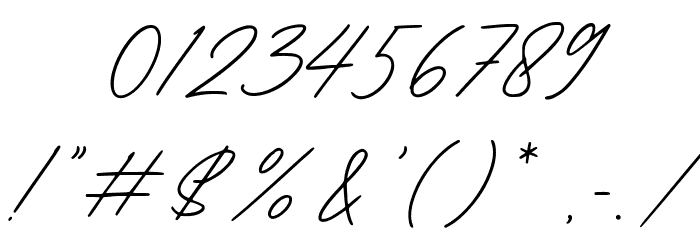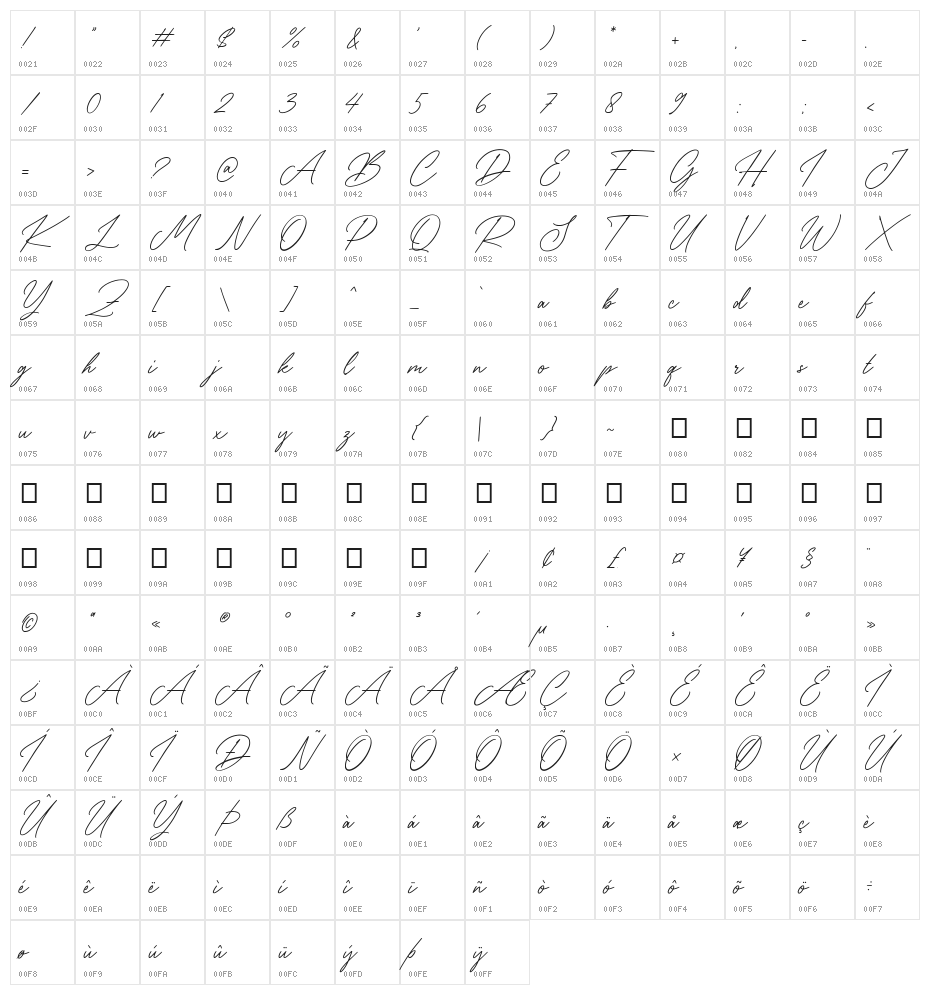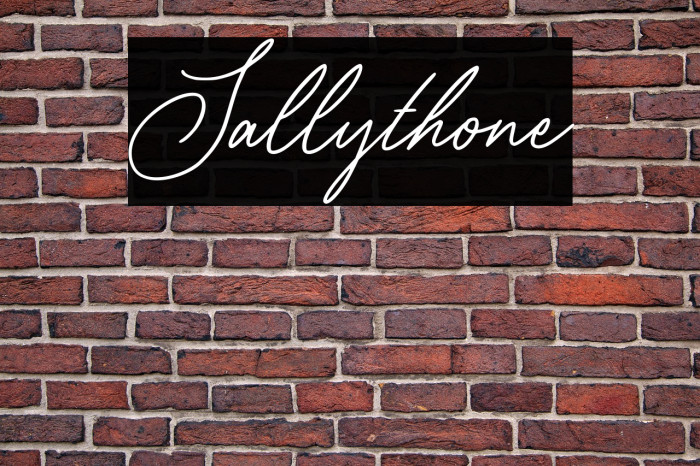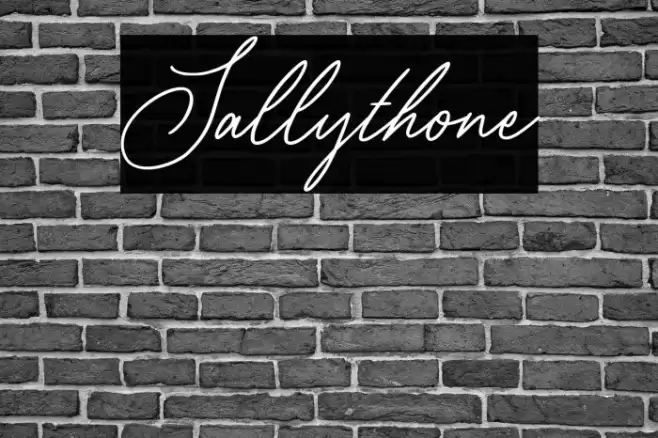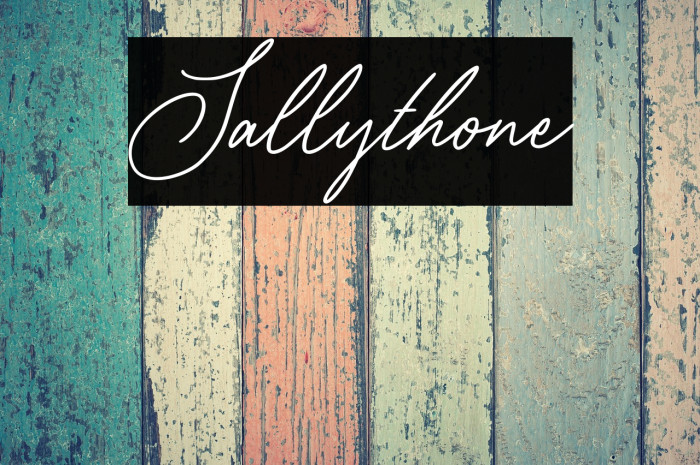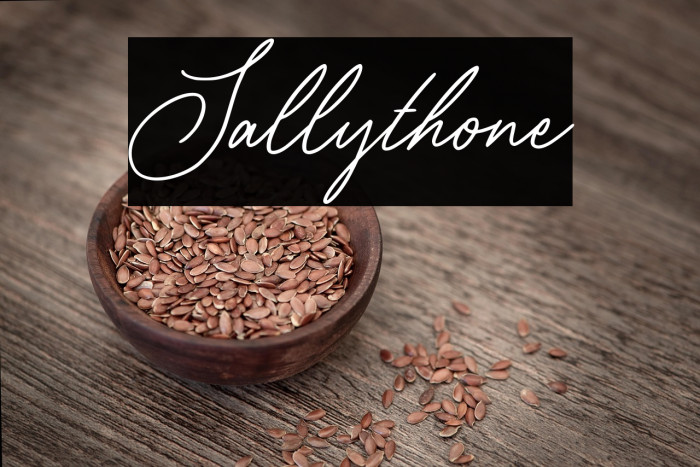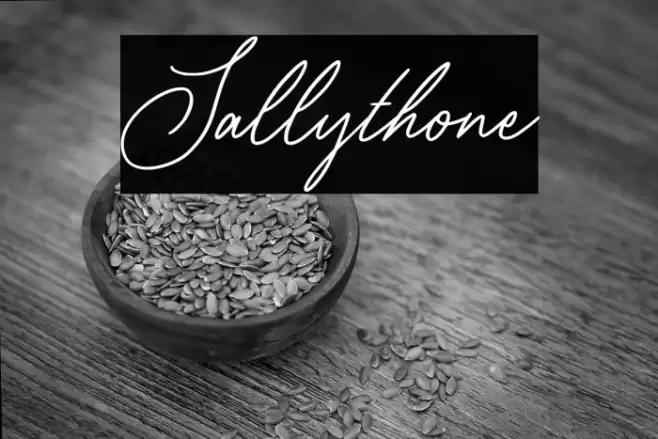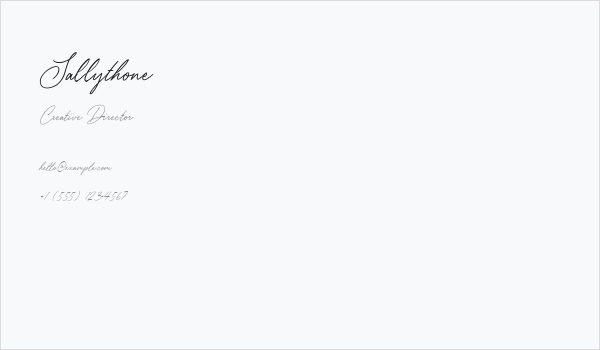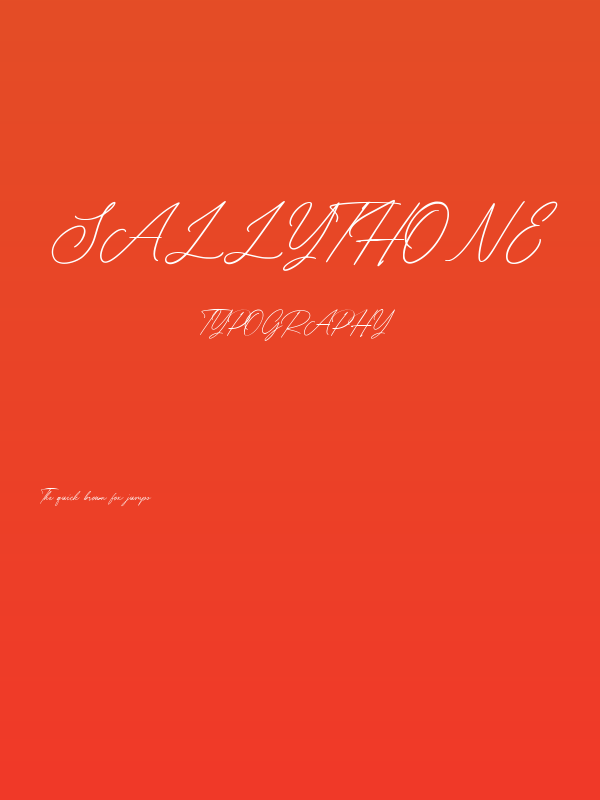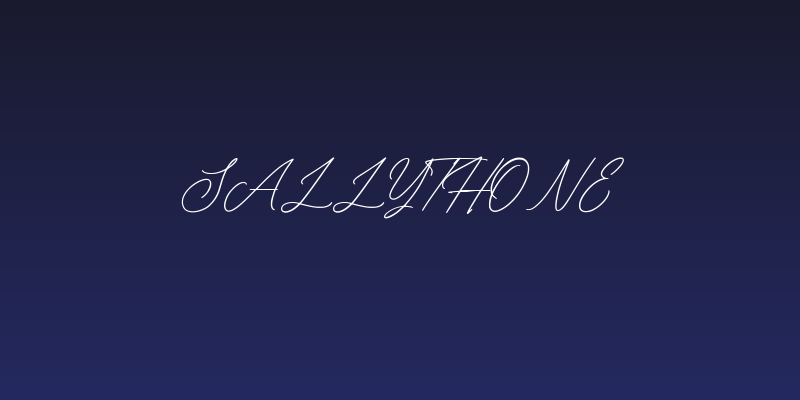
Sallythone Font
Sallythone Description
This elegant script font features a flowing, cursive style that mimics natural handwriting. The uppercase letters are gracefully elongated with smooth, sweeping curves, while the lowercase letters maintain a consistent rhythm and fluidity. The numerals are designed with a similar flair, offering a cohesive look across all characters. Special characters are seamlessly integrated, maintaining the font's overall aesthetic. This font exudes sophistication and charm, making it ideal for projects that require a personal touch.
| Proposed Projects | Ideal for wedding invitations, greeting cards, personal branding, and elegant logo designs. |